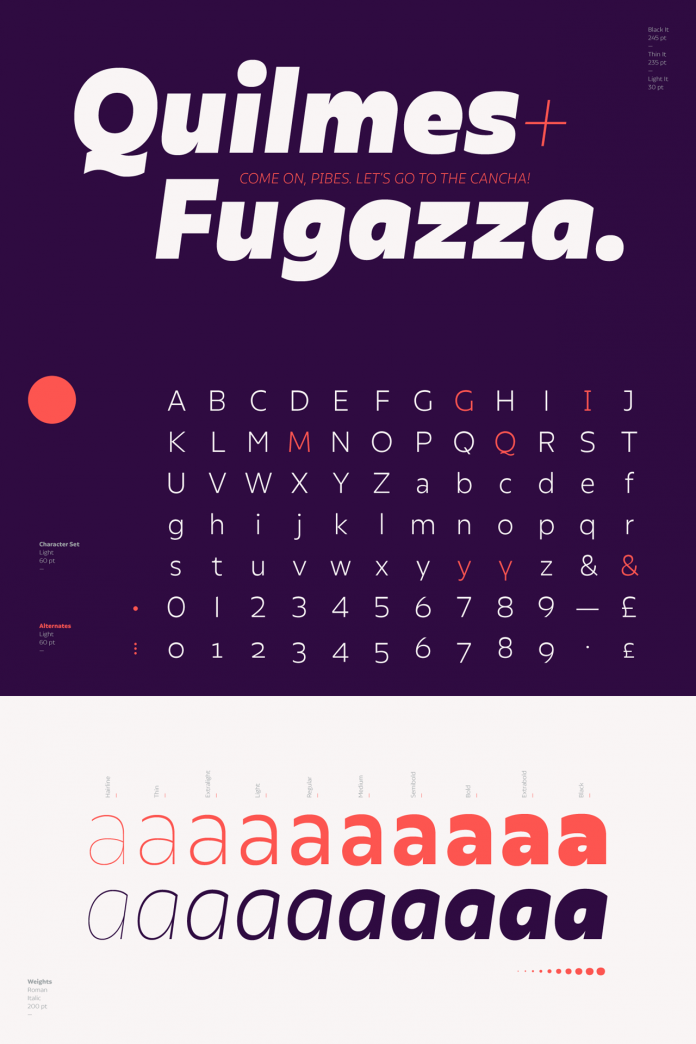
Olivetta, a spontaneous, kind of ironic sans serif font family from type foundry Los Andes.
Designed by Alfonso García in 2019 for foundry Los Andes, the Olivetta typeface is a fresh take on the often very similar-looking sans-serif styles. Characterized by high contrast between thick and thin strokes of the lowercase letterforms, Olivetta’s typeface offers visual strength while illustrating the power of words through its striking, dominant yet little cheeky appearance.
The full family consists of twenty styles including ten weights plus matching Italics. The versatile weights range from hairline to black. Each individual style contains over 400 glyphs with numerous alternative characters and extras. The lightweights of the Olivetta font family are great for subtle headlines, while the heavier ones are well suited for poster designs, short text sections, branding projects, and editorial designs. Last but not least, its intermediate weights offer the best readability. Therefore, they are well suited for longer texts. To learn more, just have a look at the images below. By the way, the entire family is currently available as a heavily discounted introductory offer—so hurry and check out the following links.